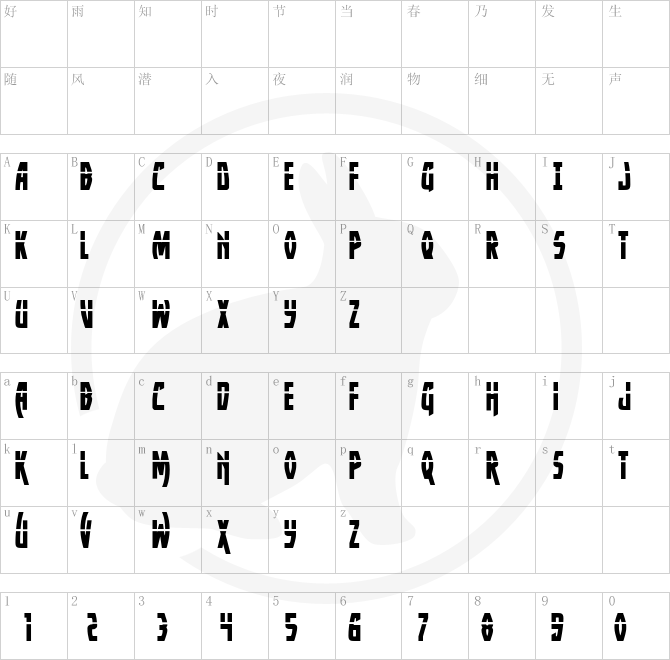
- Font Name:Yankee Clipper Laser
Yankee-Clipper-Laser-Regular.ttf is a very beautiful artistic font, Yankee-Clipper-Laser-Regular.ttf is widely used in the design and printing of various books and pictures,Yankee-Clipper-Laser-Regular.ttf has a strong visual impact,Yankee-Clipper-Laser-Regular.ttf is a commonly used font in newspapers, magazines and books, and is used in posters, e-commerce Poster design, store design, logo design, font design and other fields.Yankee-Clipper-Laser-Regular.